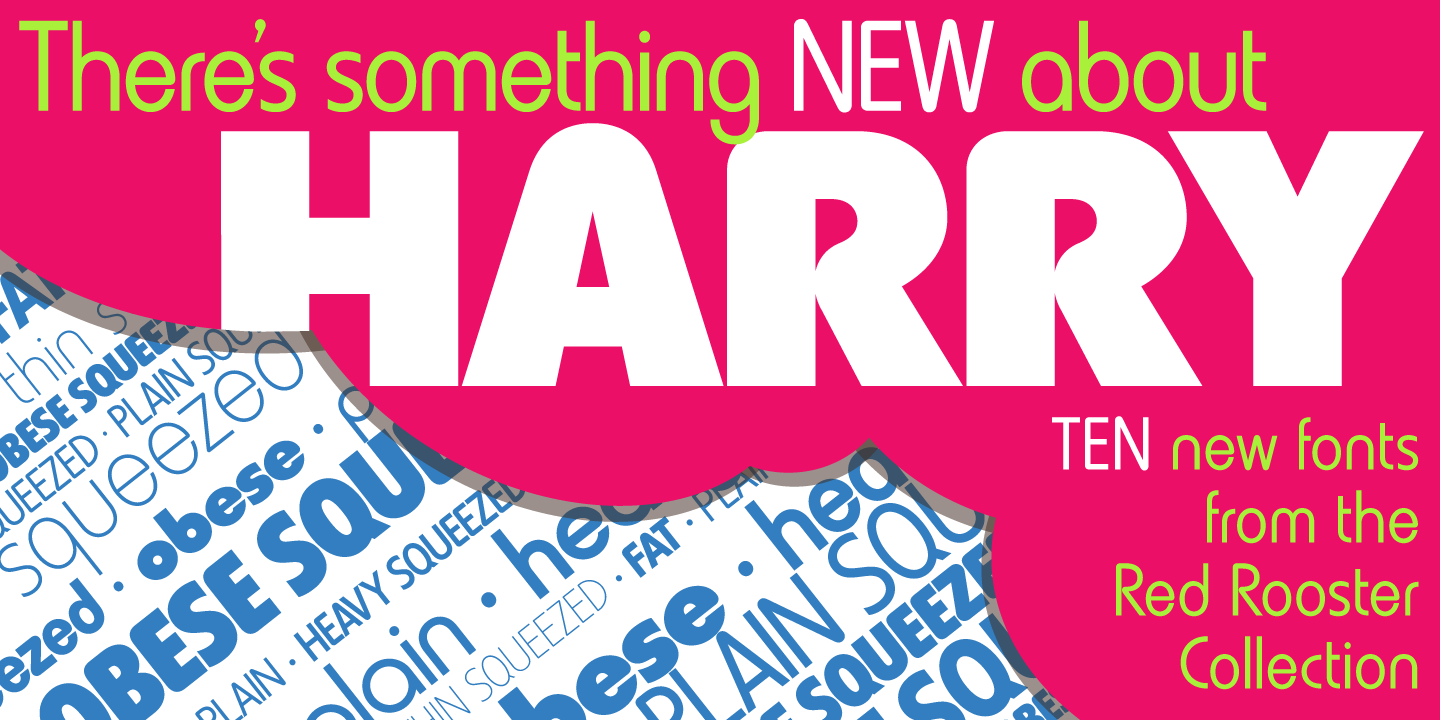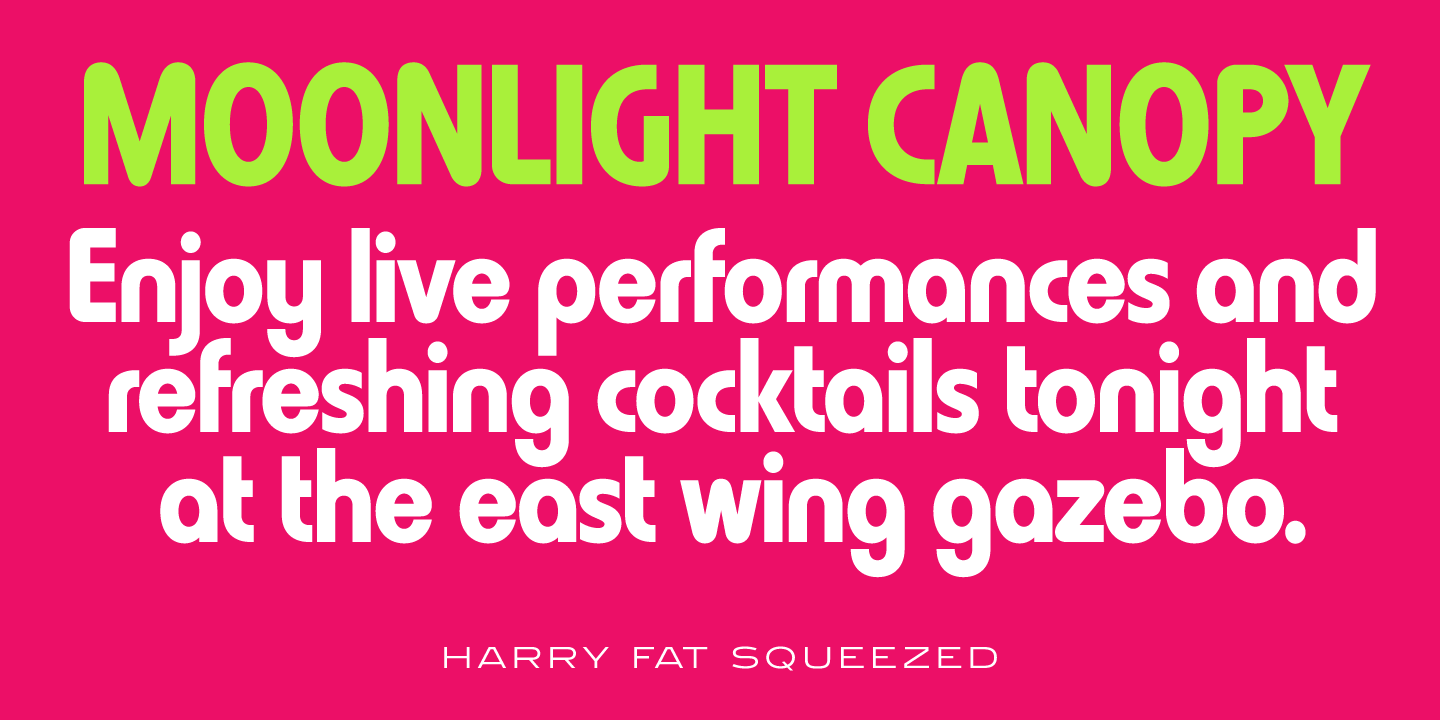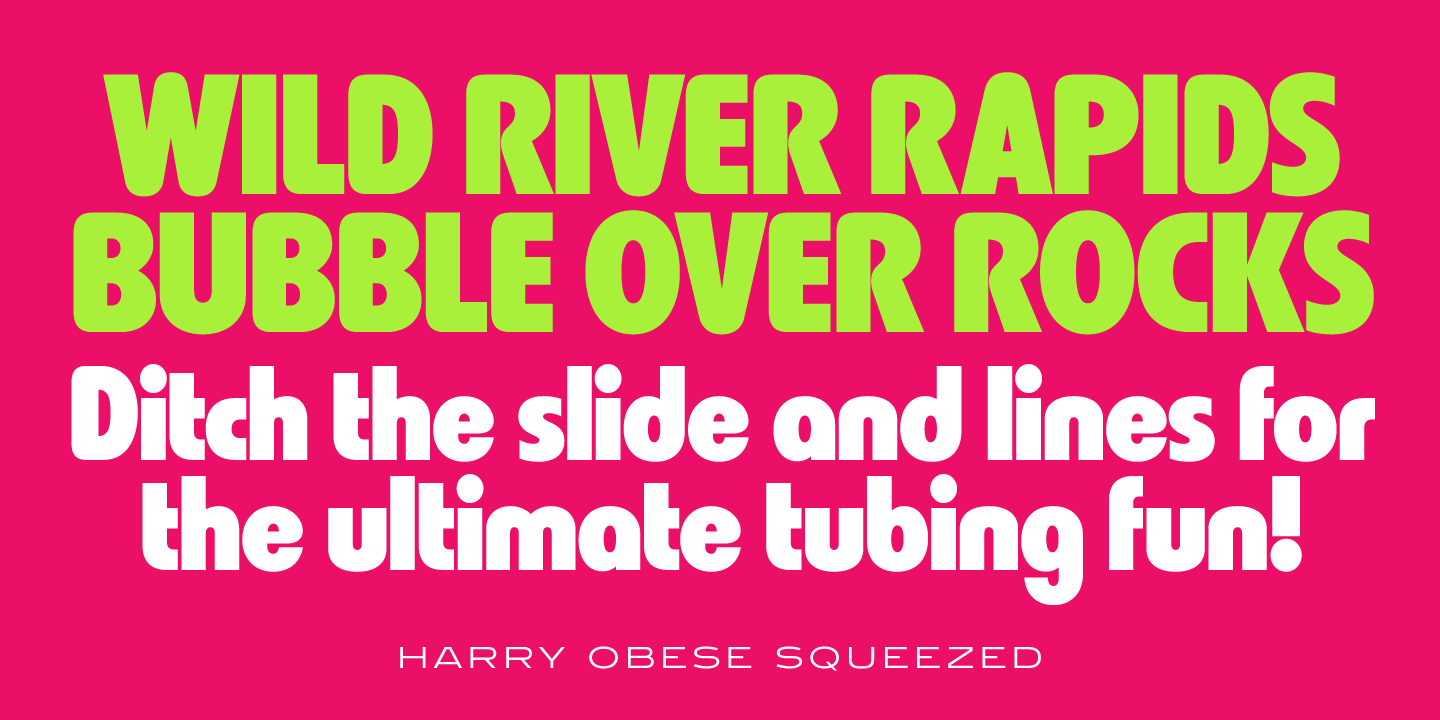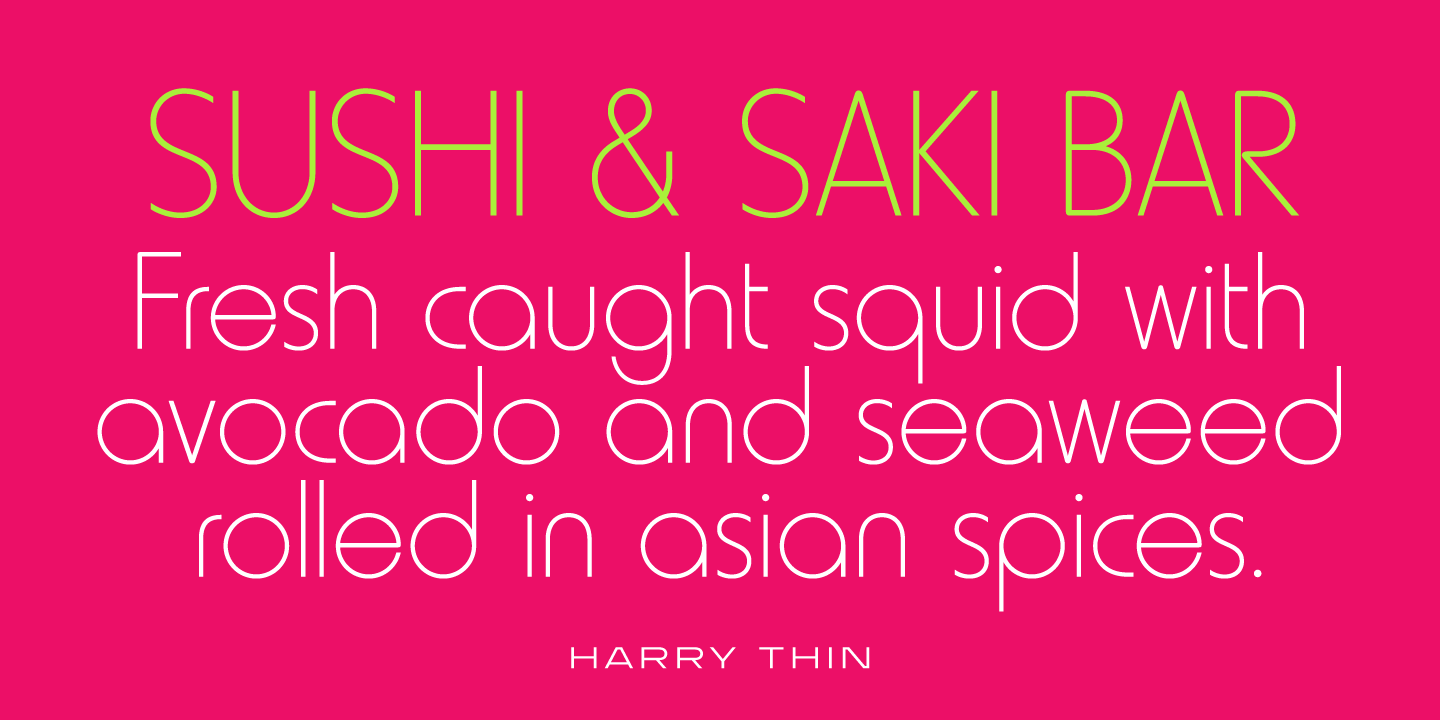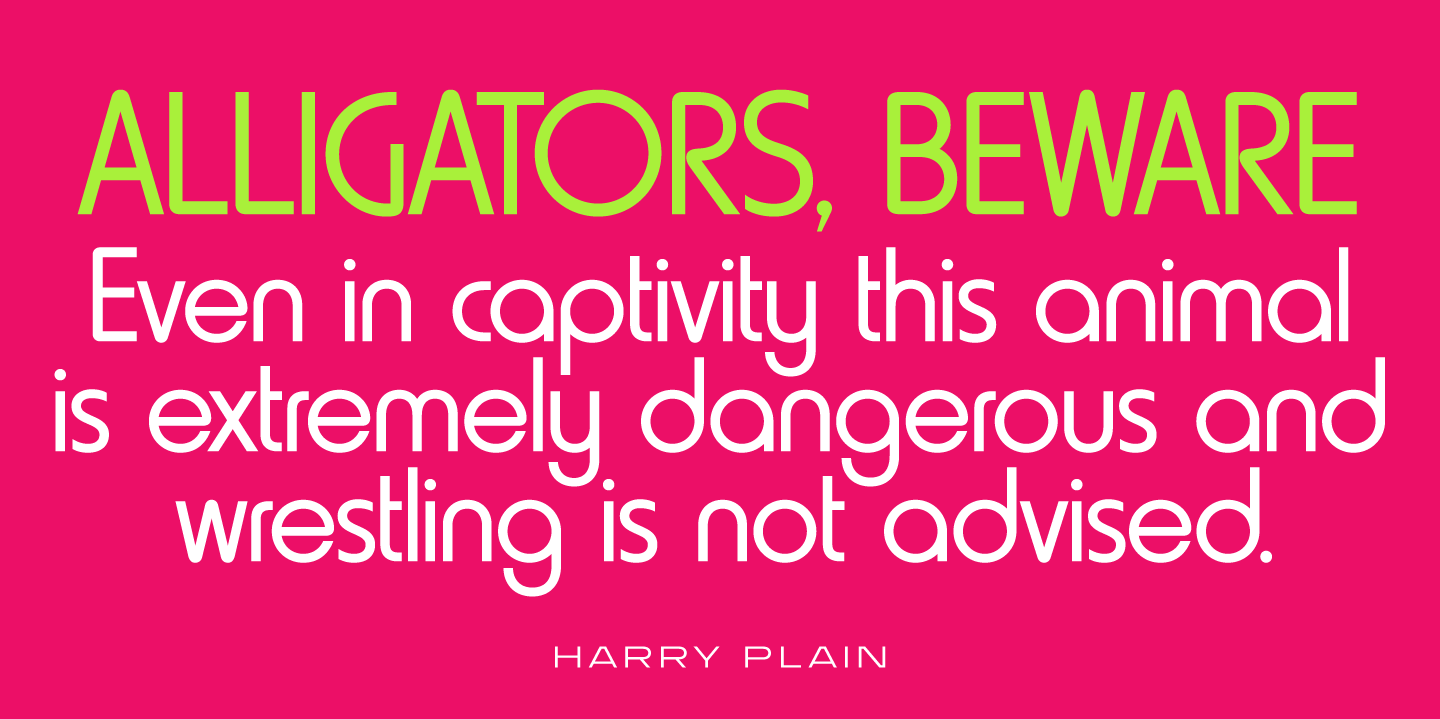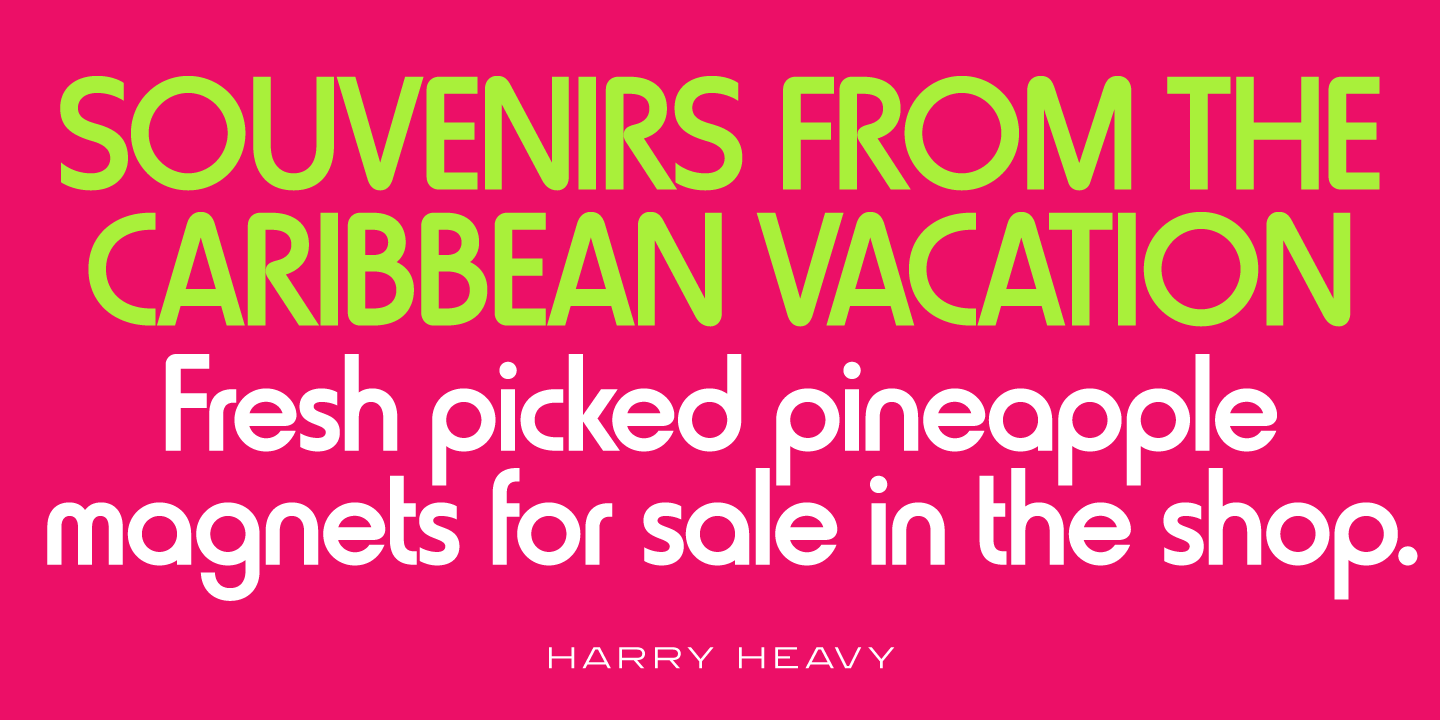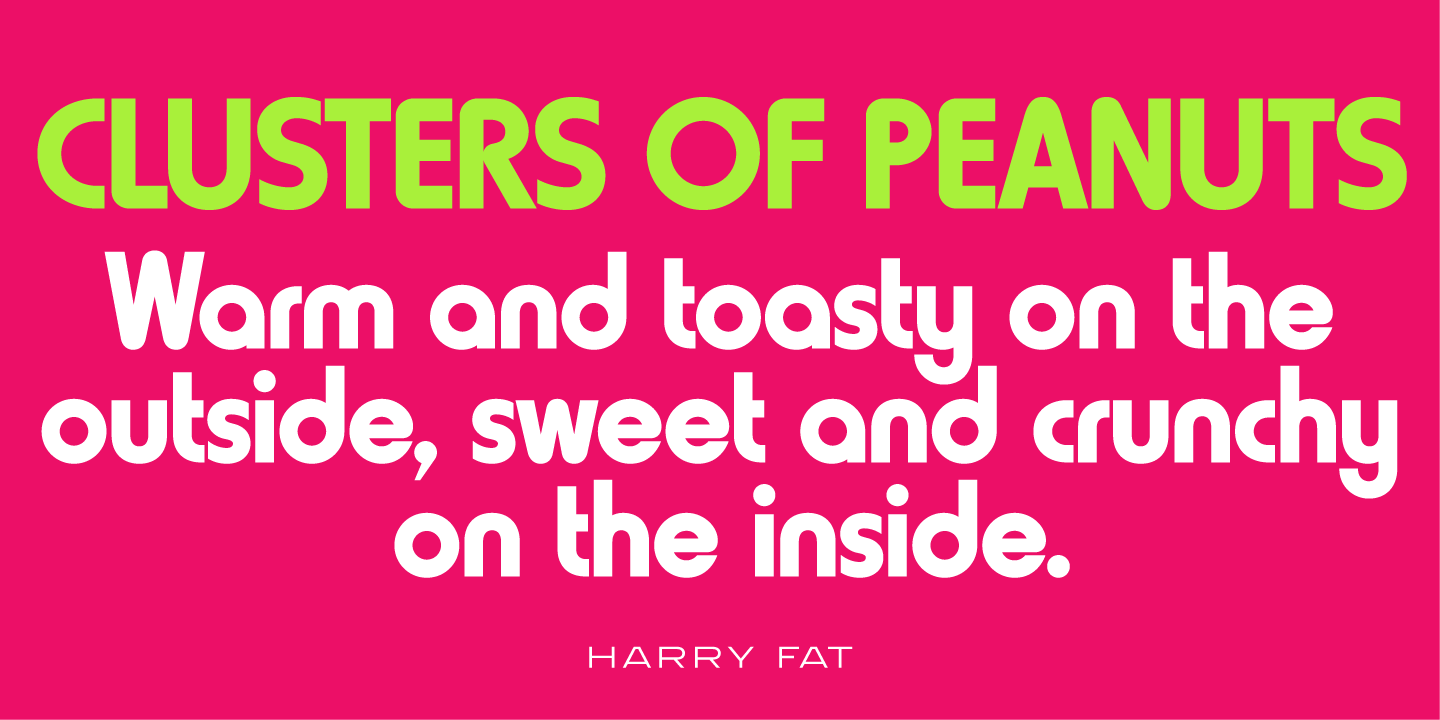
Harry Font Family
Harry is a sans serif font family based on the original design by Marty Goldstein and C.B. Smith. Goldstein, born in Chicago in 1939, was the co-founder of the groundbreaking Creative Black Book. Harry, first published by Visual Graphics Corporation (VGC) in 1966, was named after Goldstein’s father. Harry was designed and produced in 2009 by Steve Jackaman (ITF) and Ashley Muir, and four new weights were added to the original six. The family sports a modern, simplistic feel, and finds its niche at any size.